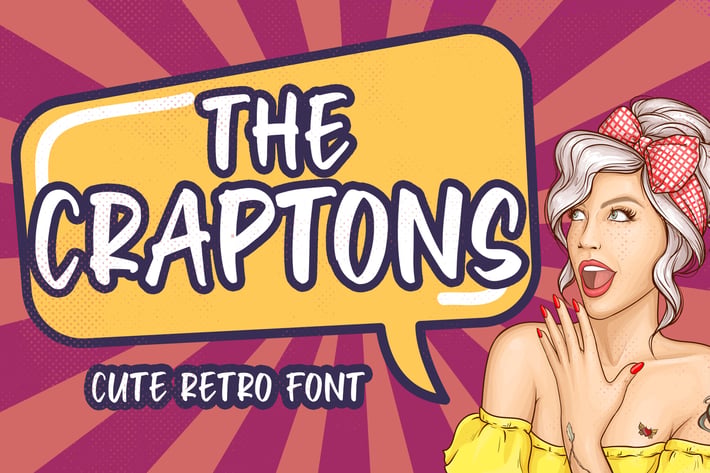
Craptons - Cute Retro Font
Introducing of our new product the name is Craptons Cute Retro Font. Craptons inspired by comic style with a fun theme very good for comic, pop art poster, kids poster, flyer, childrenbook, cartoon etc
MULTILINGUAL ACCENT :
ŽžŠŒšŸÀÁÂÃÄÅÆÇÈÉÊËÌÍÎÏÐÑÒÓÔÕÖØÙÚÛÜÝßàáâãäåæçèéêëìíîïñòóôõöøùúûüýÿ